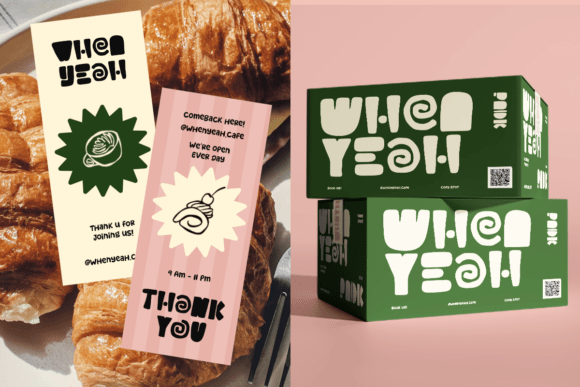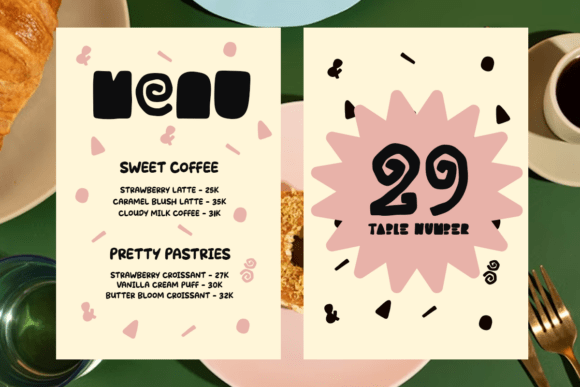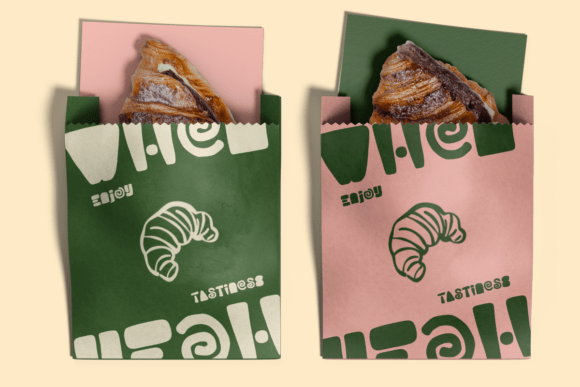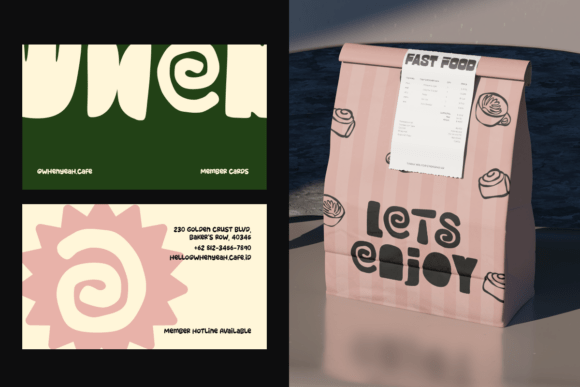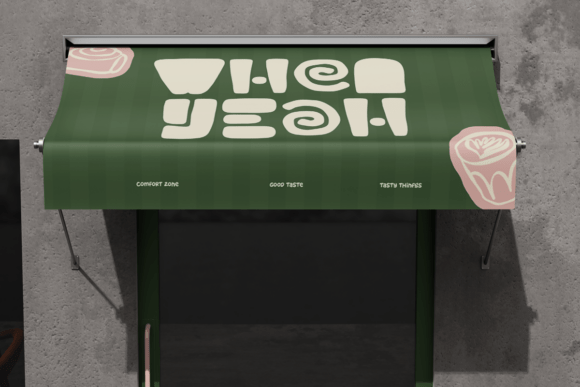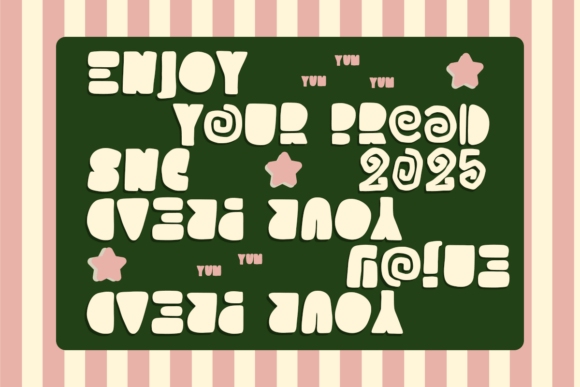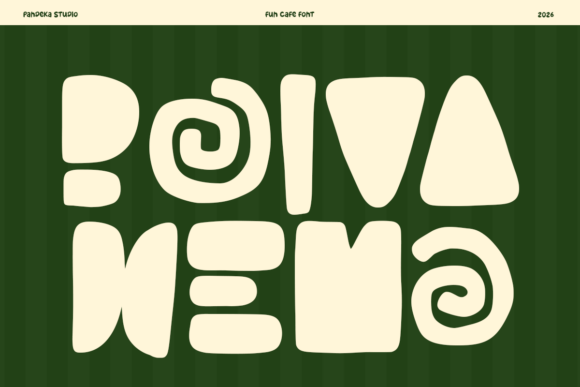
The Ultimate Guide to Bolva Hema Font: Adding Warmth and Whimsy to Your Designs
Have you ever been working on a design project, pouring your heart and soul into it, only to hit a roadblock when it comes to choosing the perfect font? I certainly have! It was during one of those moments, while brainstorming ideas for a cafe branding project, that I stumbled upon the delightful Bolva Hema font. Its quirky shapes and friendly character instantly won me over, and I knew I had to share its charm with fellow designers and creative enthusiasts.
An Honest Review of Bolva Hema Font
What I Love About Bolva Hema Font
- ✨ Unique and playful design that adds a touch of whimsy to any project
- ✅ Friendly and approachable character that creates a welcoming atmosphere
- 💕 Perfect for cafe branding, food visuals, and lifestyle designs that aim to feel lively and inviting
- 🎉 Excellent for headlines, titles, and short paragraphs of text
While Bolva Hema font is undoubtedly charming, it’s not without its quirks. 🤔 Here are a few things to keep in mind:
- ⚠️ May not be the best choice for body text or long paragraphs, as its playful design can be overwhelming
- ⚠️ Some characters may not be suitable for small font sizes, so be sure to test it out before finalizing your design
The Story Behind Bolva Hema Font
While the true story behind Bolva Hema font remains a mystery, it’s easy to imagine that its designer was inspired by the whimsical world of cafes, food, and lifestyle. Perhaps they wanted to create a font that would bring people together, evoking feelings of warmth and friendliness. Whatever the inspiration, Bolva Hema font is sure to delight!
| Author | pandekastudio |
Q: What type of projects is Bolva Hema font best suited for?
Bolva Hema font is perfect for cafe branding, food visuals, and lifestyle designs that aim to feel approachable and lively.
Q: Can I use Bolva Hema font for body text or long paragraphs?
While Bolva Hema font is charming, it’s not ideal for body text or long paragraphs. Its playful design can be overwhelming in large blocks of text.
Q: Is Bolva Hema font suitable for small font sizes?
Some characters may not be suitable for small font sizes, so be sure to test it out before finalizing your design.